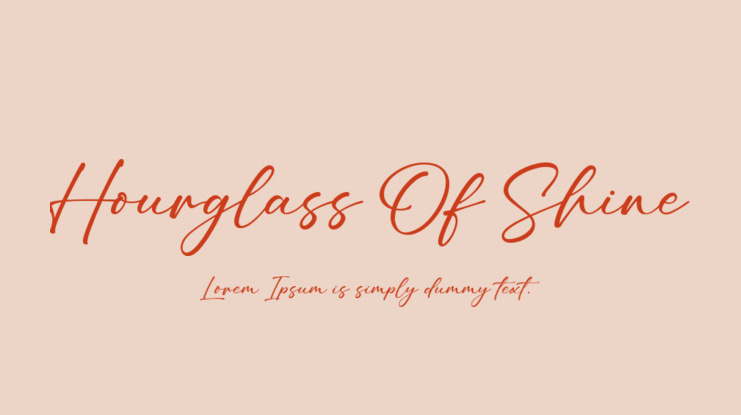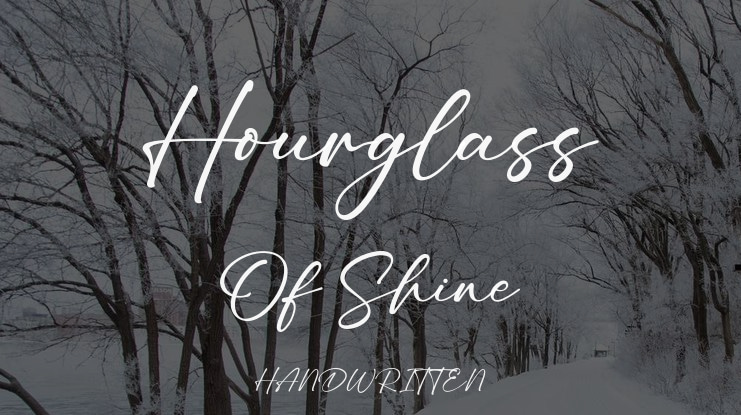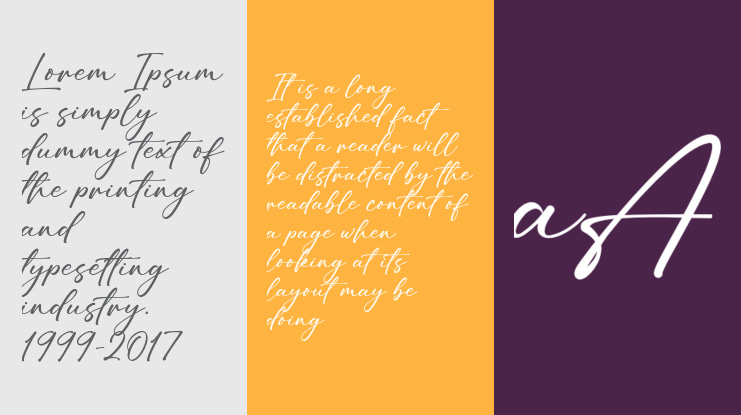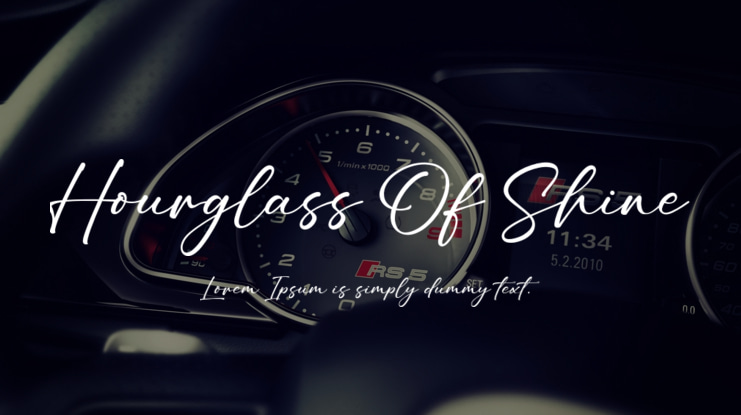
Hourglass Of Shine Font
Elevate your designs and captivate your audience with our elegant handwritten script font. This font offers a natural touch and beautiful style that exudes timeless beauty. Get it now and take your work to the next level!